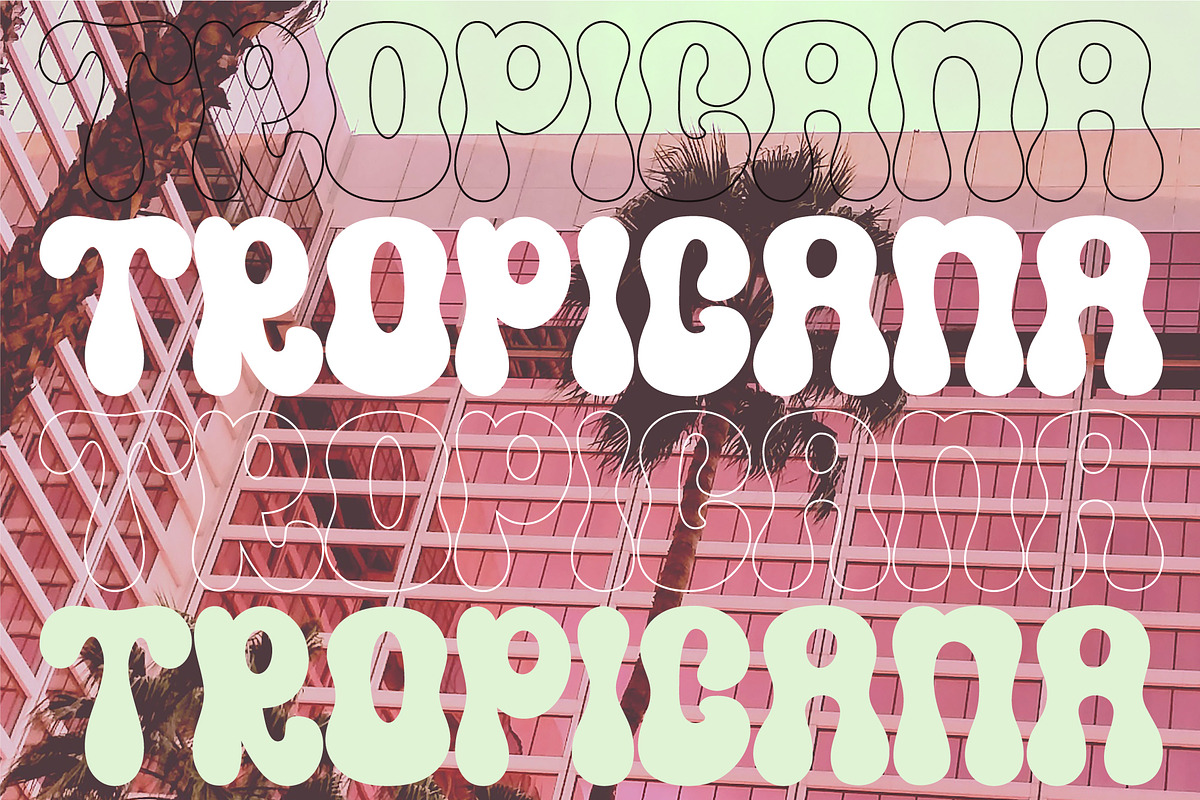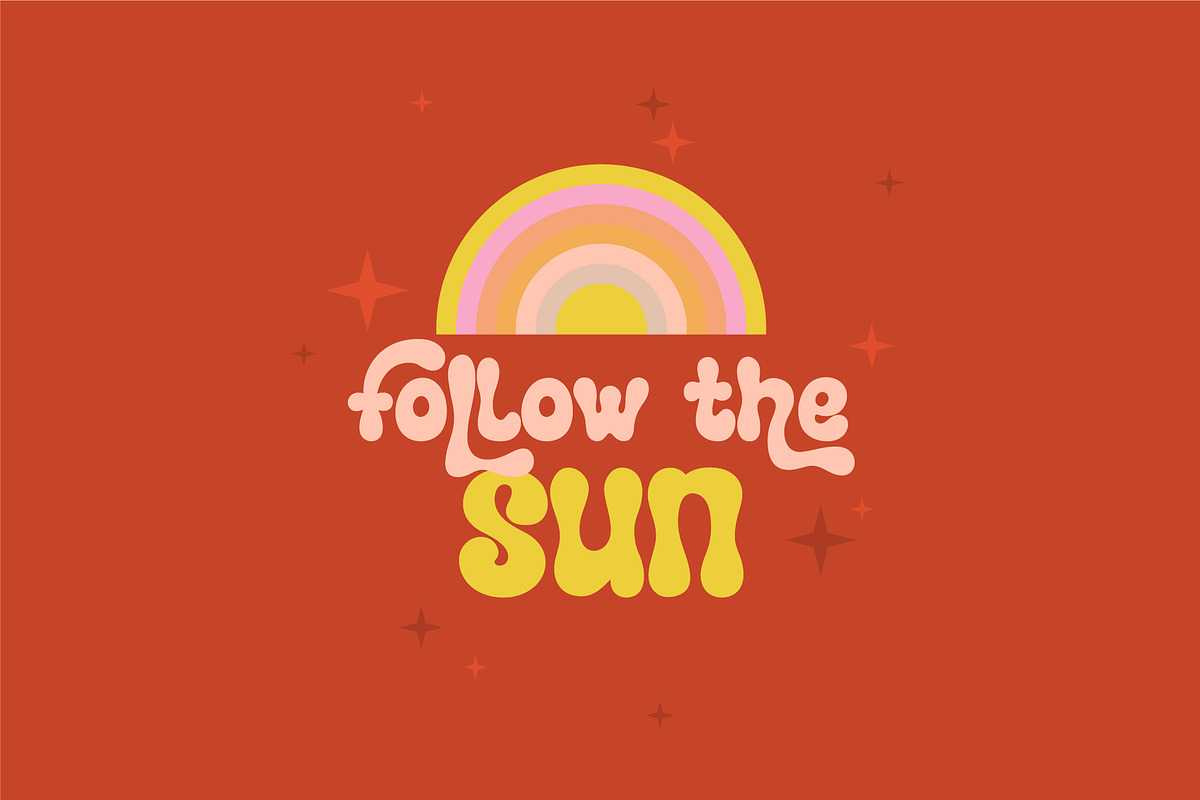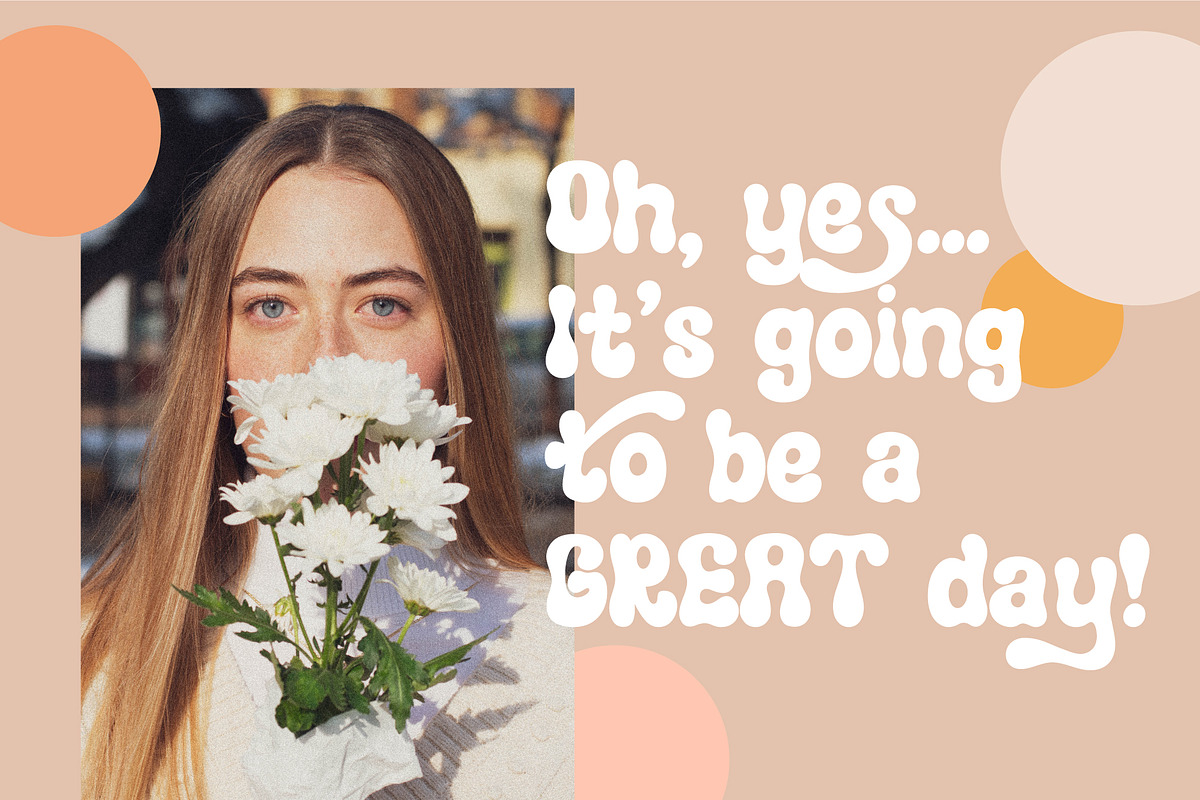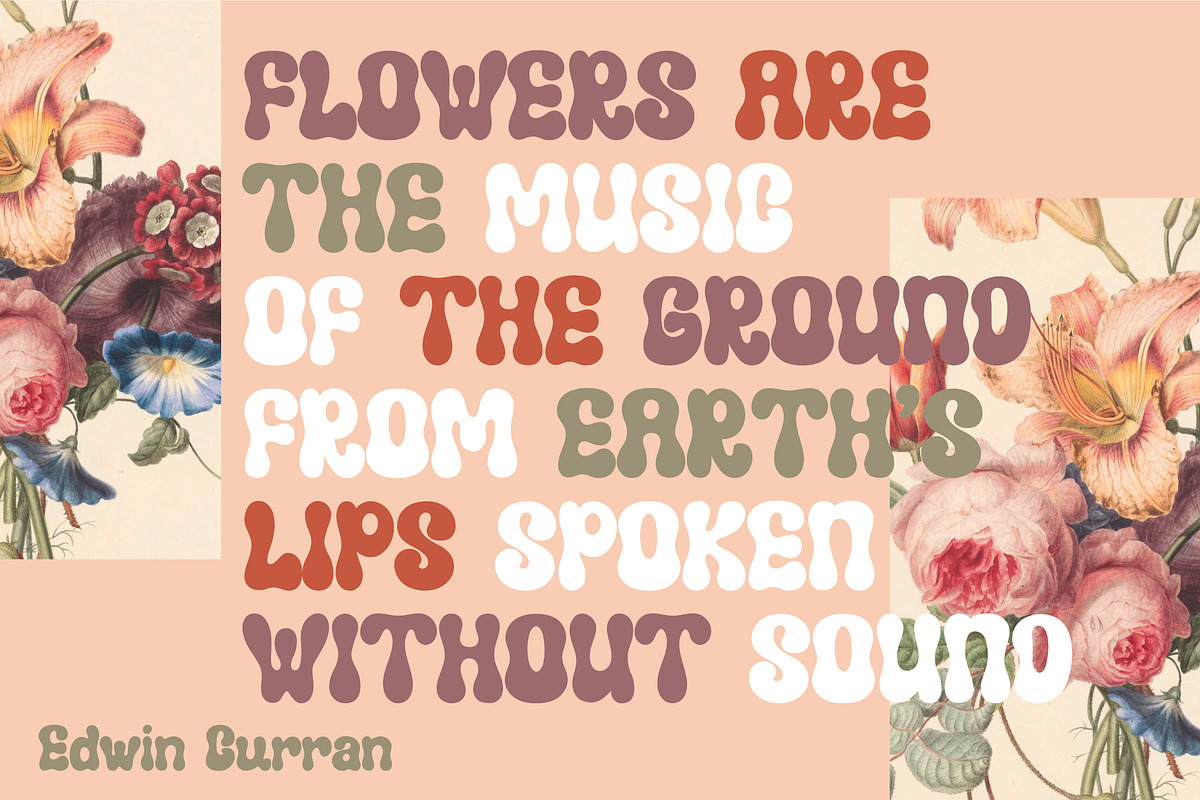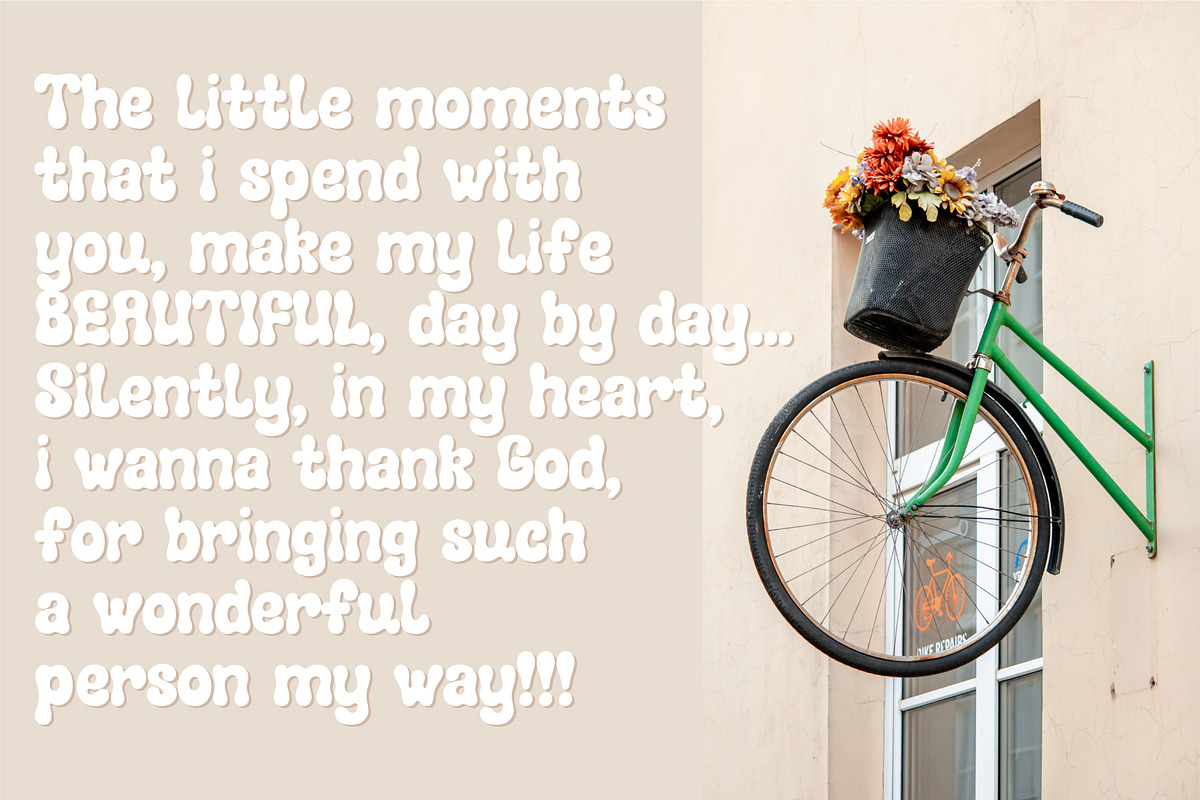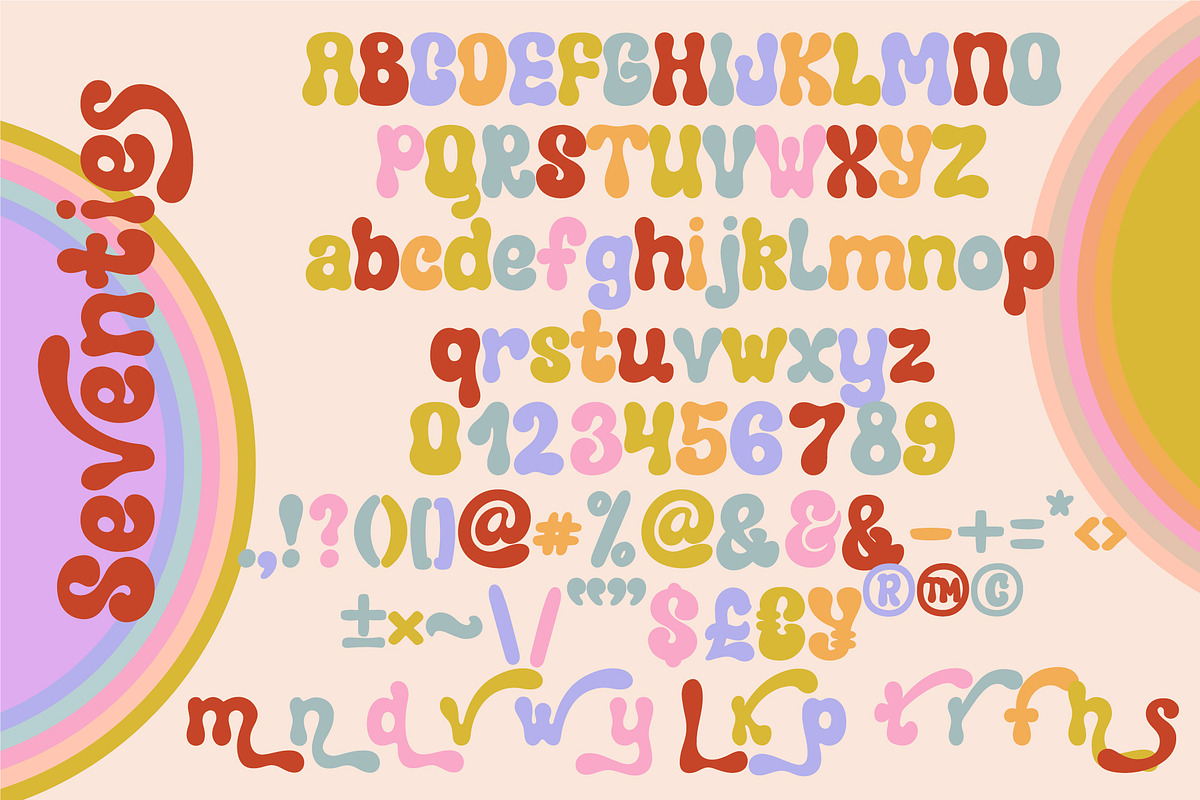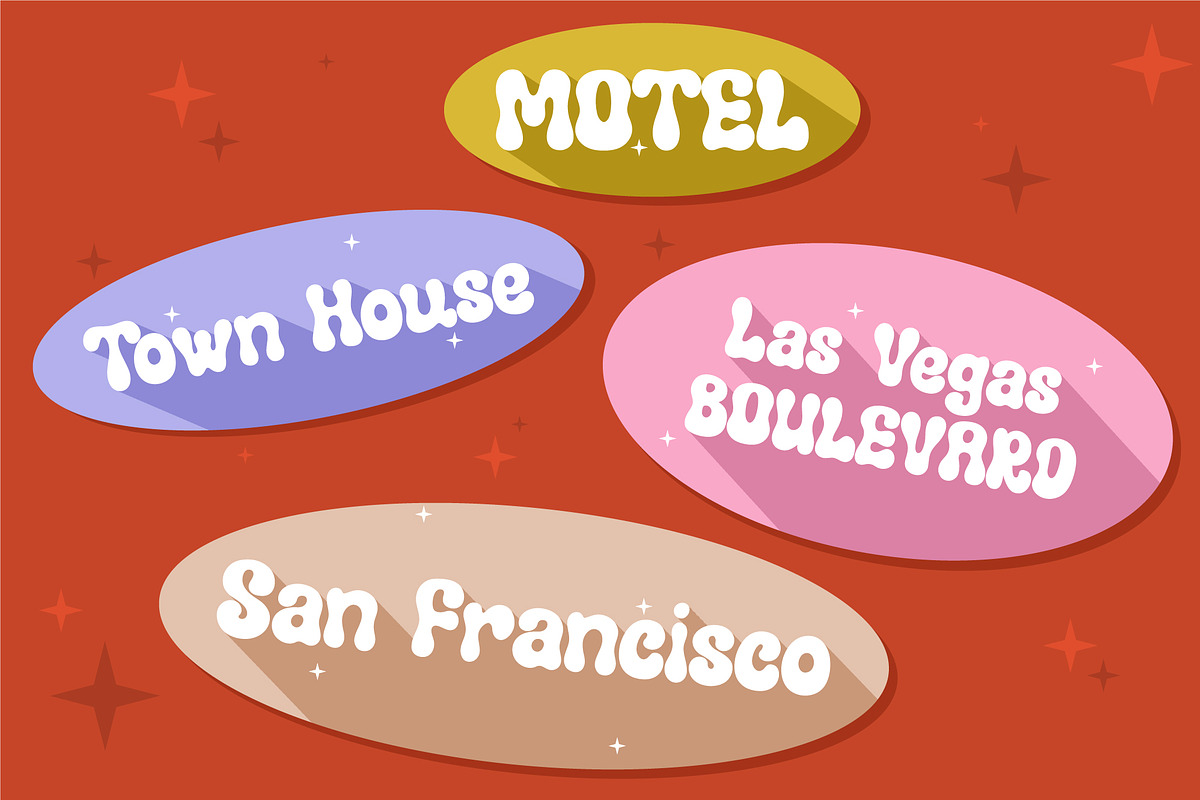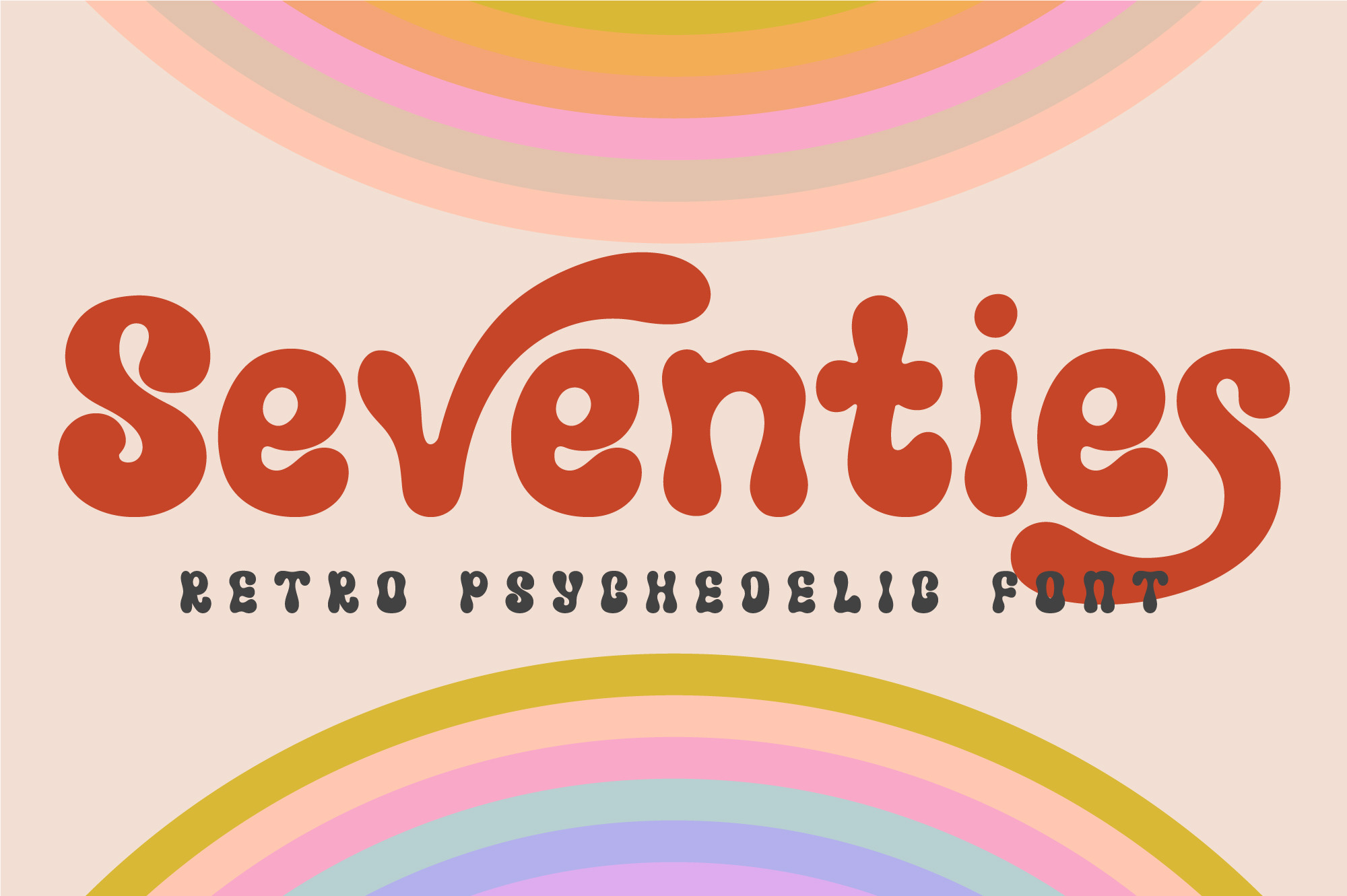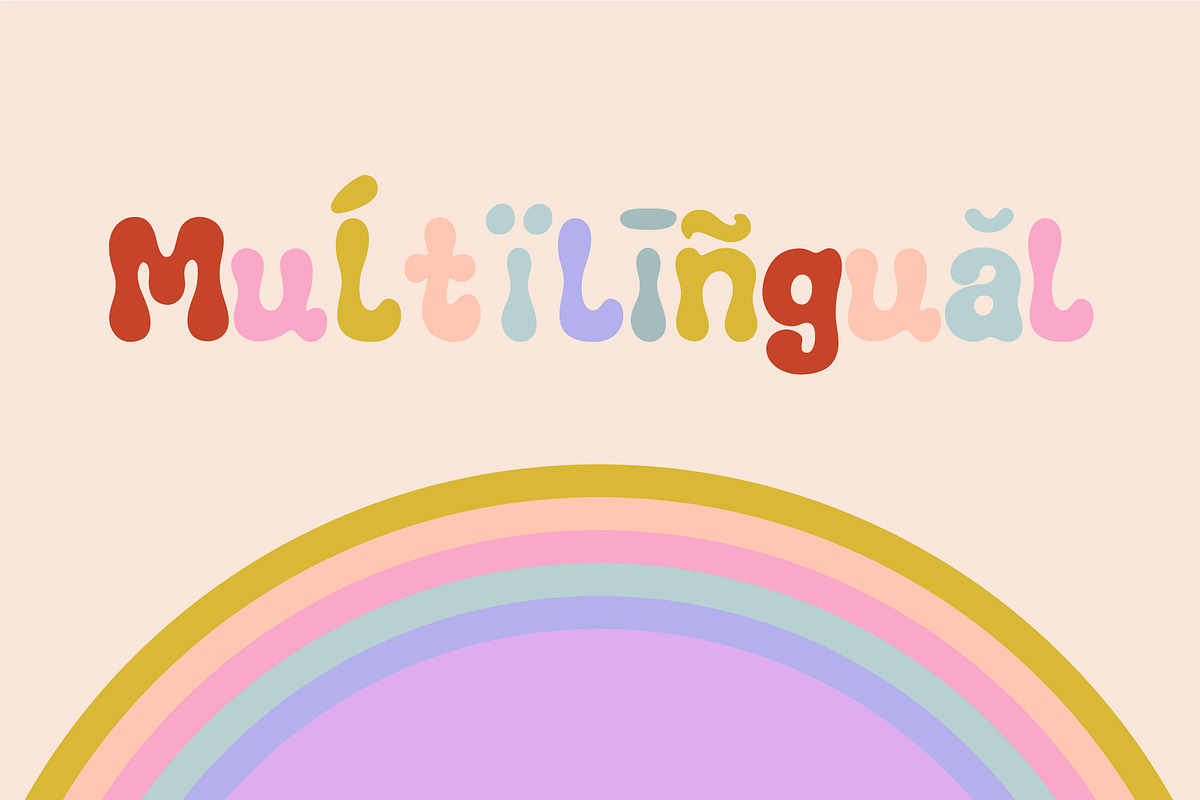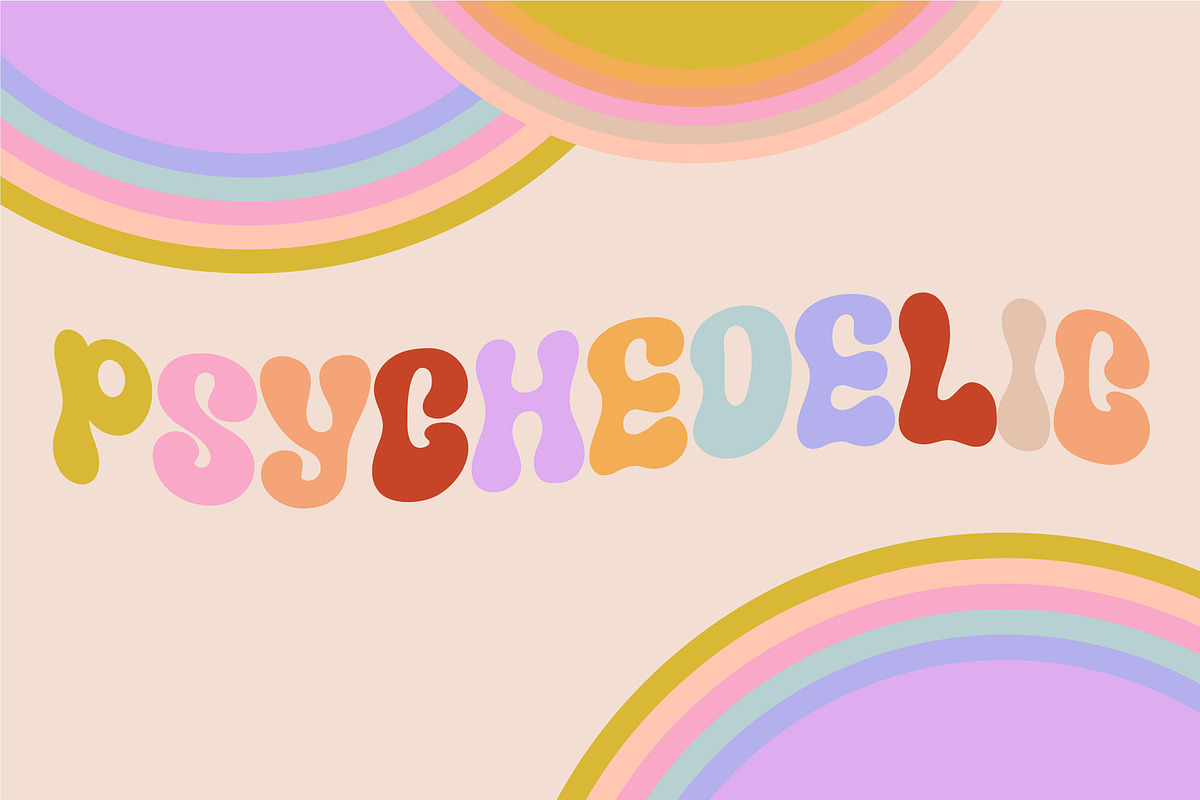
Vintage Psychedelic Font
Introducing Seventies - new vintage psychedelic bold font with stylish alternates.
It has both modern and retro look and that 1970s bubble style - clear, elegant and fun. Helps to create Retro cartoon style in 60s or 70s design projects. You can type with regular letters or access Open Type features for a large selection of alternates to give your logo or business card a unique vintage look.
Seventies is a very versatile font, suitable for different project types: for magazine publishing, fashion and art, works great in blogs, posters, flyers, logos, headlines, packaging, advertising, wedding invitations, branding and so much more.
Seventies font has uppercase, lowercase letters, opentype alternates, numbers & basic punctuation, multilingual support (French, German, Italian, Norwegian, Portuguese, Spanish, Swedish, Swiss German).